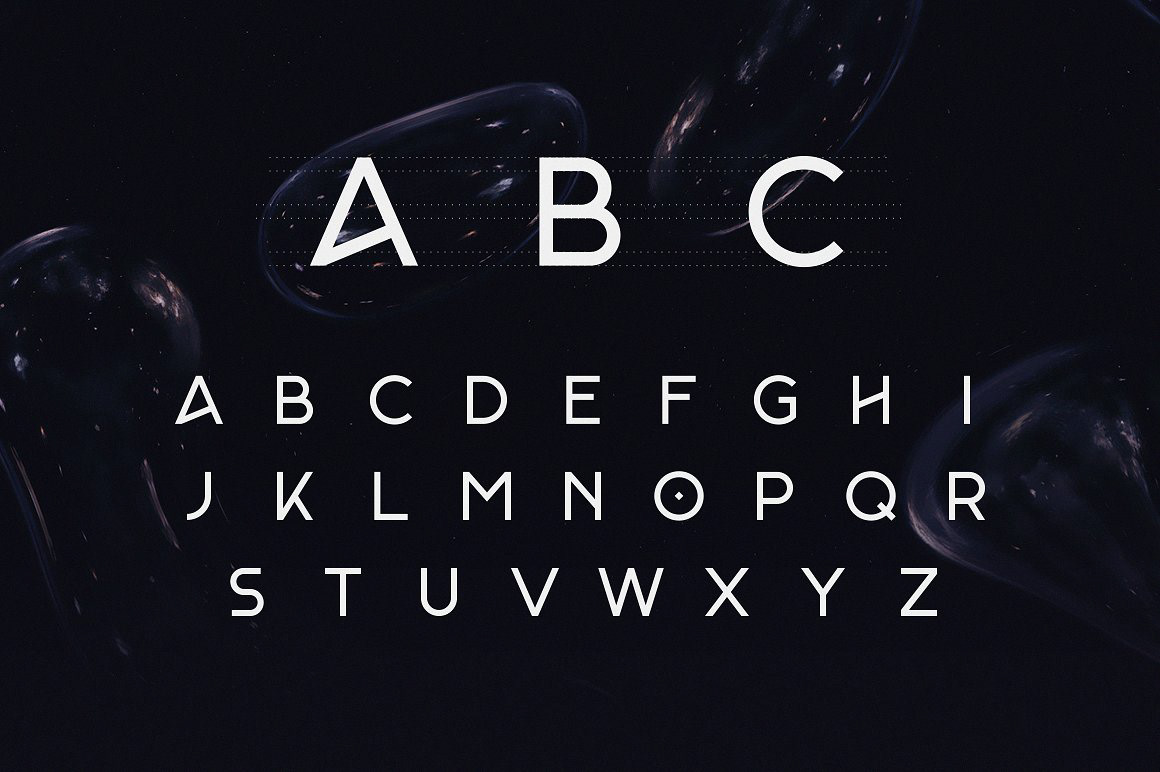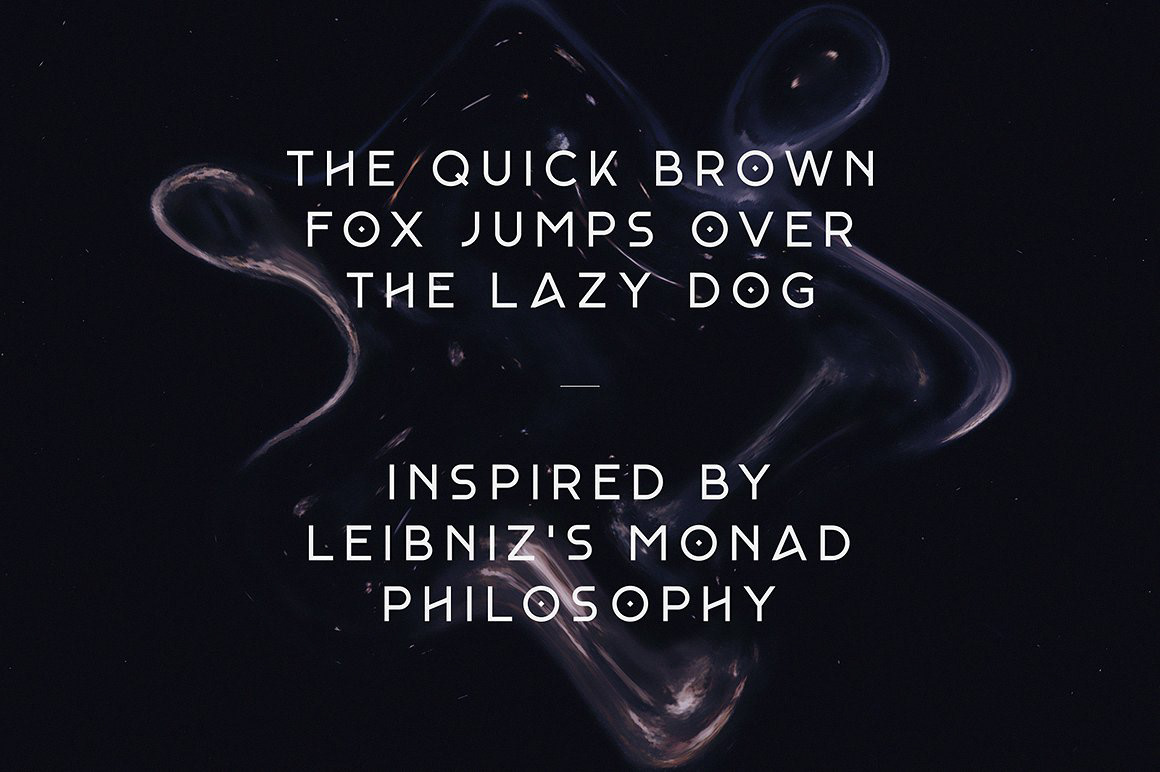
Monad Display Free Typeface
Monad Display Free Typeface is a minimal, geometrical, and elegant typeface. It is modern yet stylish which is great for display purposes such as logotype, poster, product packaging, and headline as well. In addition, you can use it freely for all your personal and commercial work!